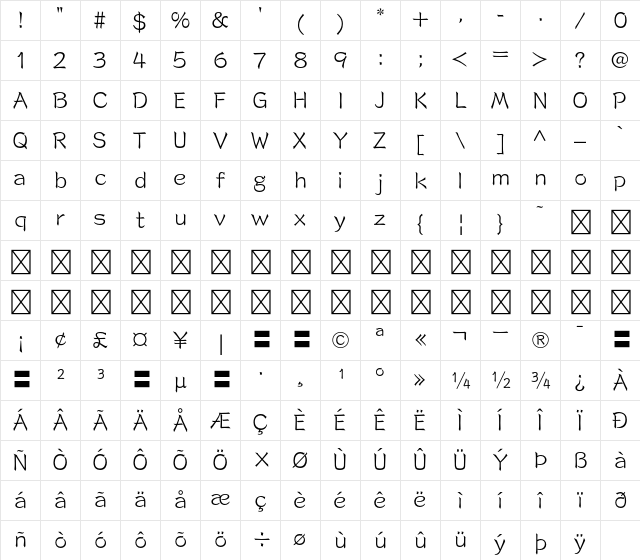
A-OTF Outai Fujikana Std Light
Design Context for A-OTF Outai Fujikana Std
A-OTF Outai Fujikana Std is a composed and adaptable typeface that performs quietly and consistently across a wide range of design contexts. Its slender proportions lend an understated elegance to any composition.